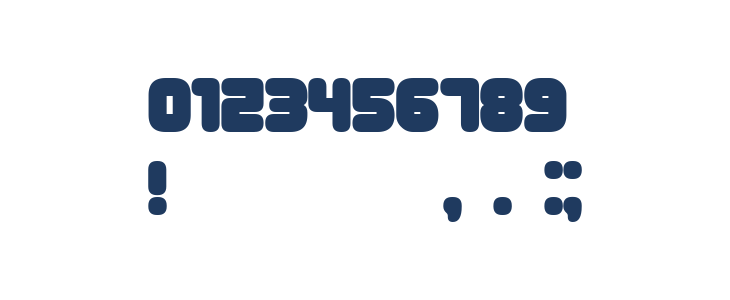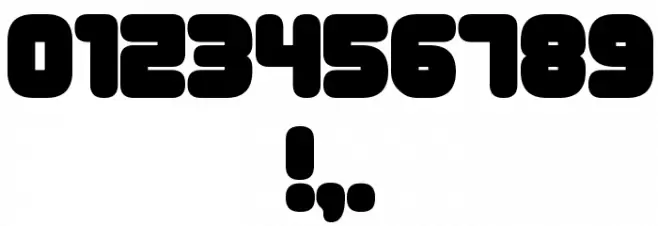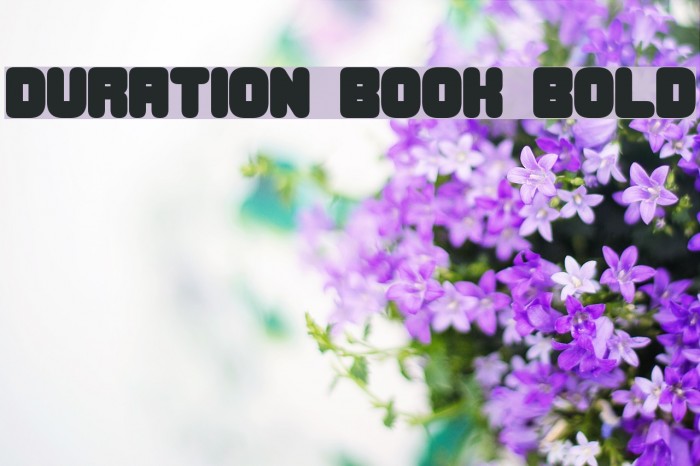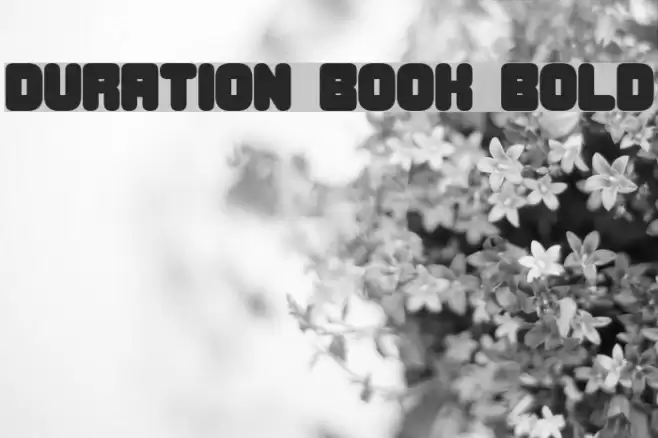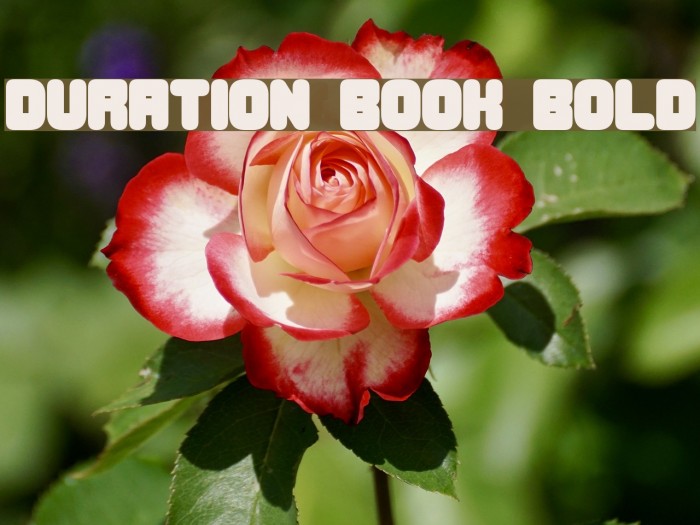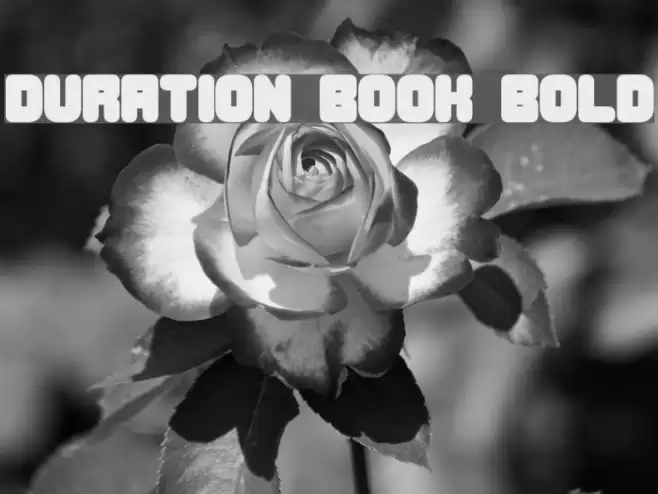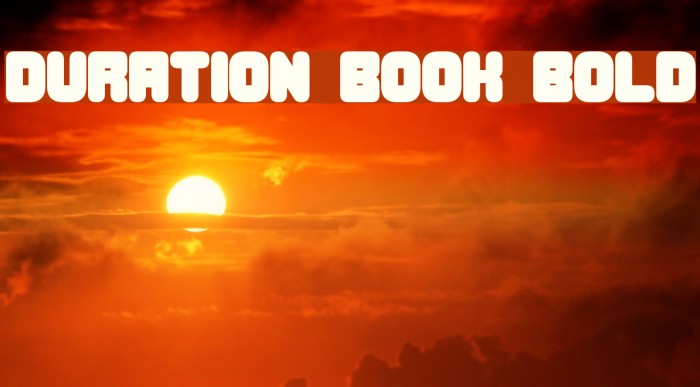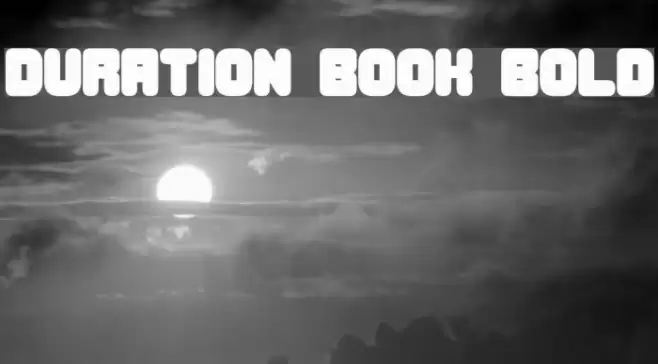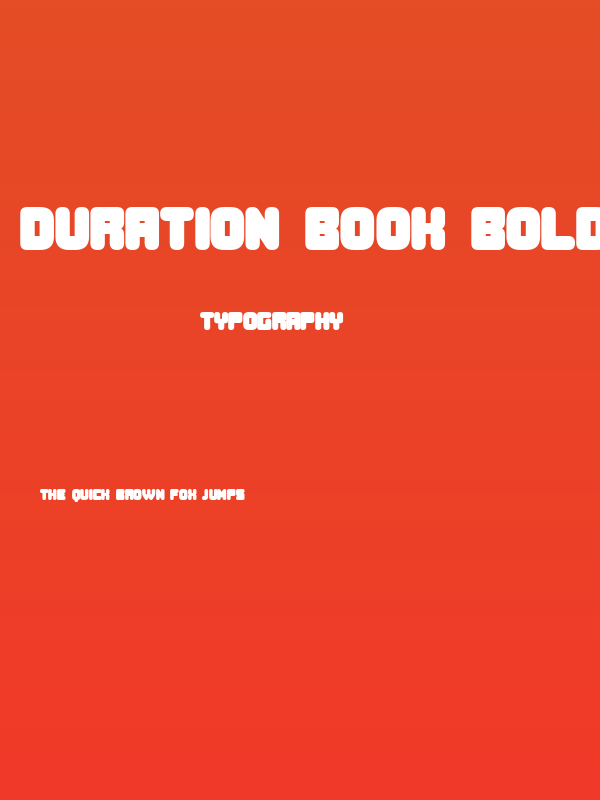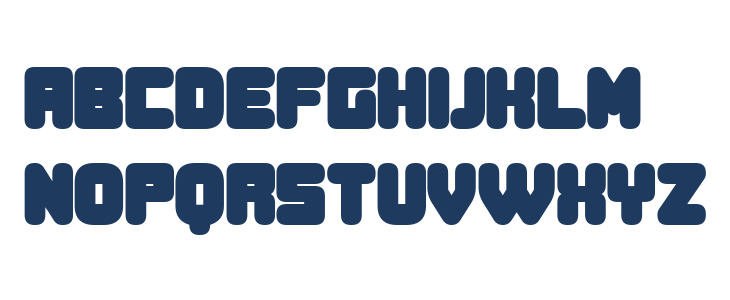
Duration Book Bold Font
Duration Book Bold Description
This font features a bold and rounded style, characterized by its thick, uniform strokes and smooth curves. The letters are highly geometric, with a consistent weight throughout each character, giving it a strong and impactful appearance. The rounded edges soften the overall look, making it approachable and friendly while maintaining a modern aesthetic. The numbers and special characters follow the same design principles, ensuring a cohesive look across all glyphs. This font is particularly effective for creating a bold statement and is easily legible from a distance.
| Proposed Projects | Ideal for branding, headlines, posters, and signage where a strong, modern impact is desired. |